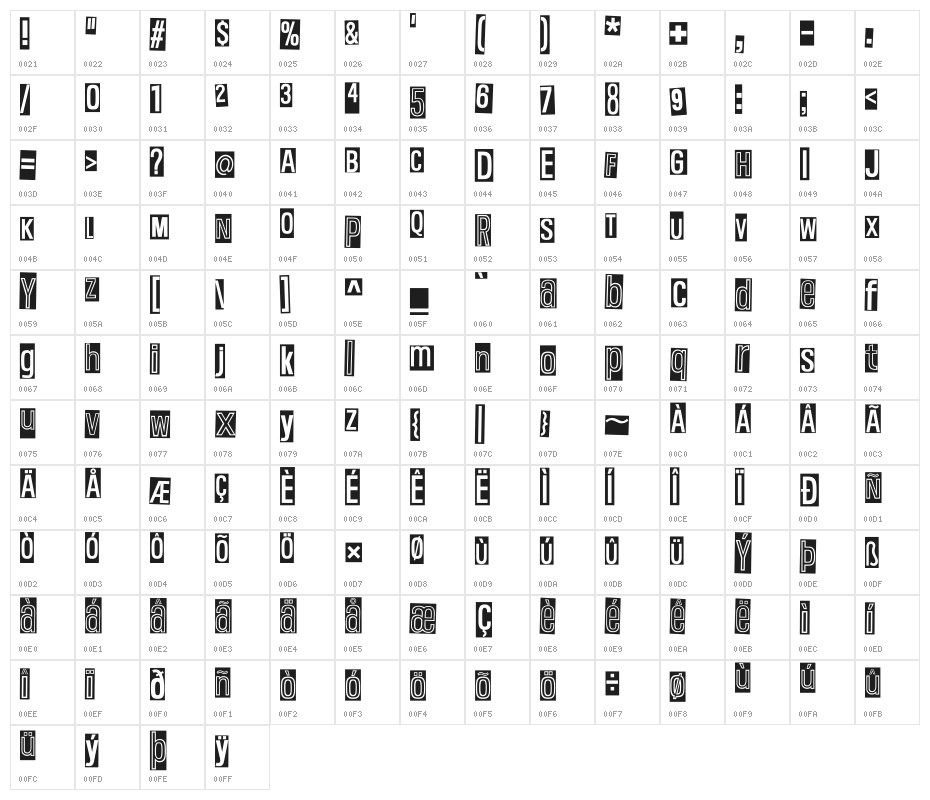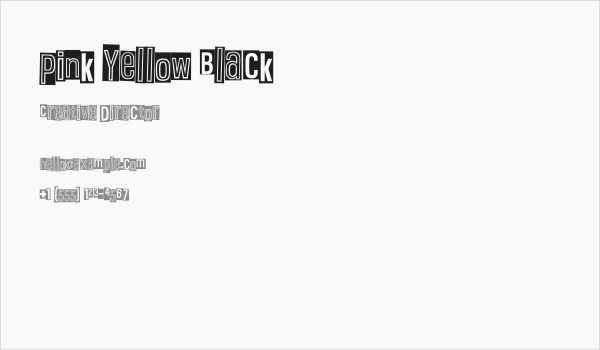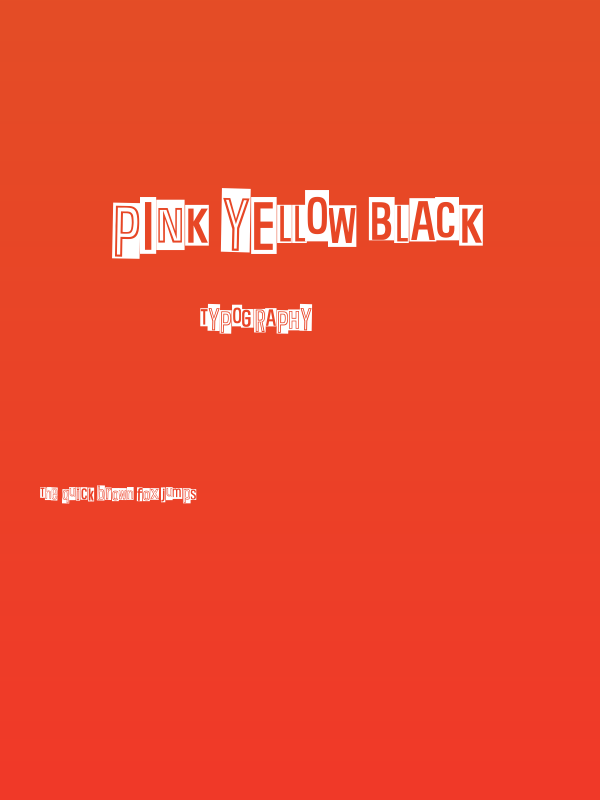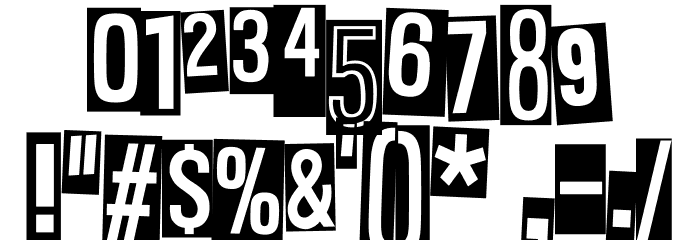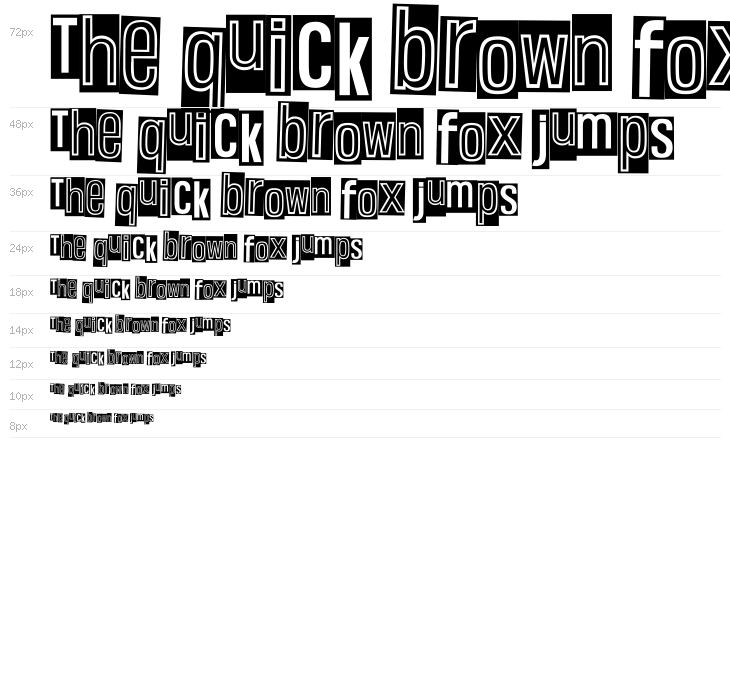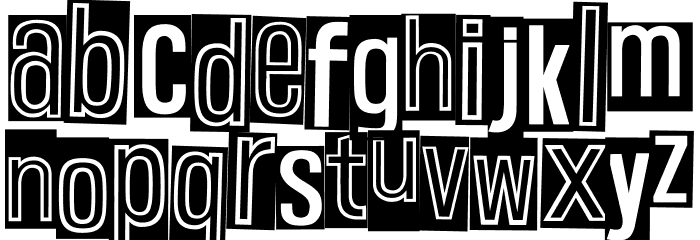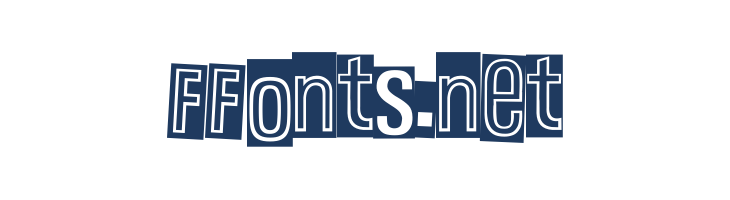
Pink Yellow Black Font
Pink Yellow Black Description
This font features a bold and dynamic style with a mix of uppercase and lowercase letters, numbers, and special characters. Each character is uniquely designed with a combination of solid fills and outlines, creating a striking contrast against the background. The letters are set against black rectangles, enhancing their visibility and adding a playful, cut-out effect reminiscent of ransom notes or collage art. The font's eclectic and energetic appearance makes it ideal for projects that require a bold statement or a touch of creativity.
| Proposed Projects | Ideal for posters, album covers, magazine headlines, and creative branding projects. |